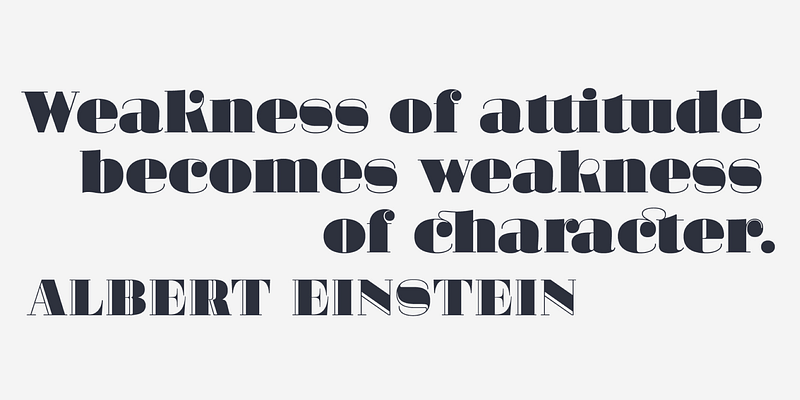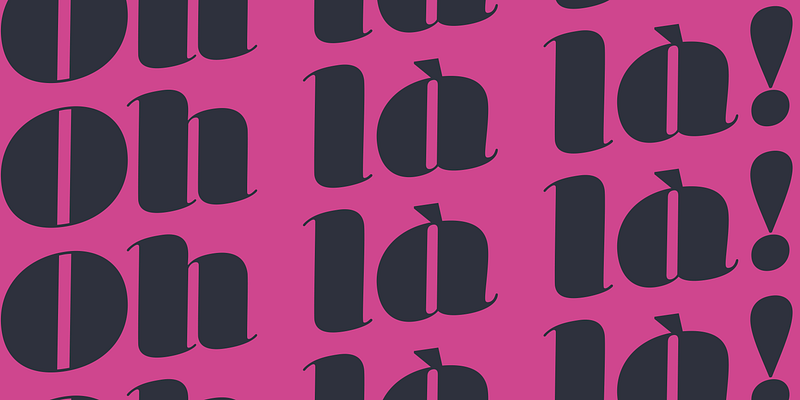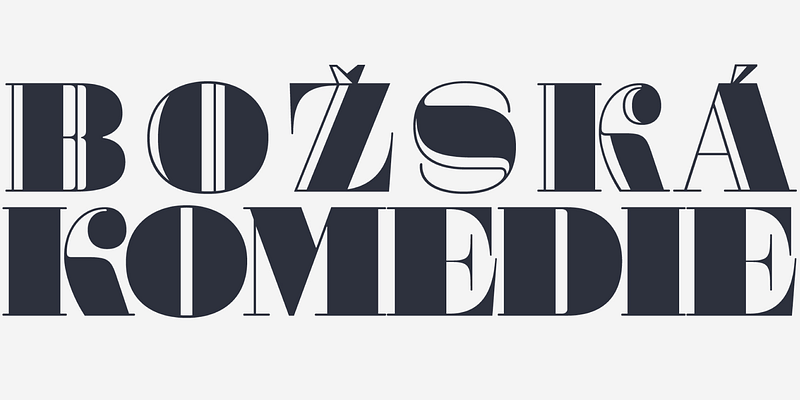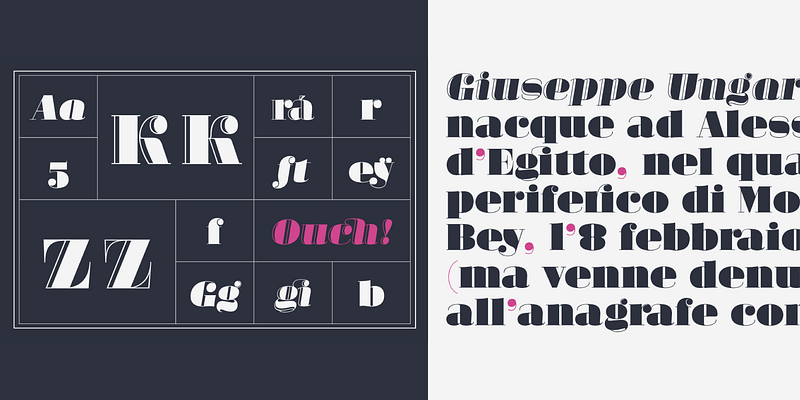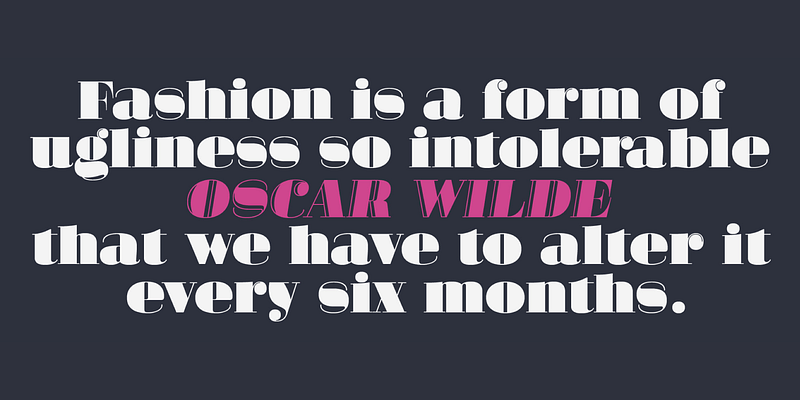
This interpretation of the modern style—in the sense of Didot and Bodoni—takes the form of a sensual fat face for display use. Named after Giambattista Bodoni’s widow, Margarita has four fonts: roman and italic in two variants, solid and engraved. It also includes a set of intriguing ornaments designed for elegant patterns and frames. Use Margarita for large type (or giant type—anything but small type).